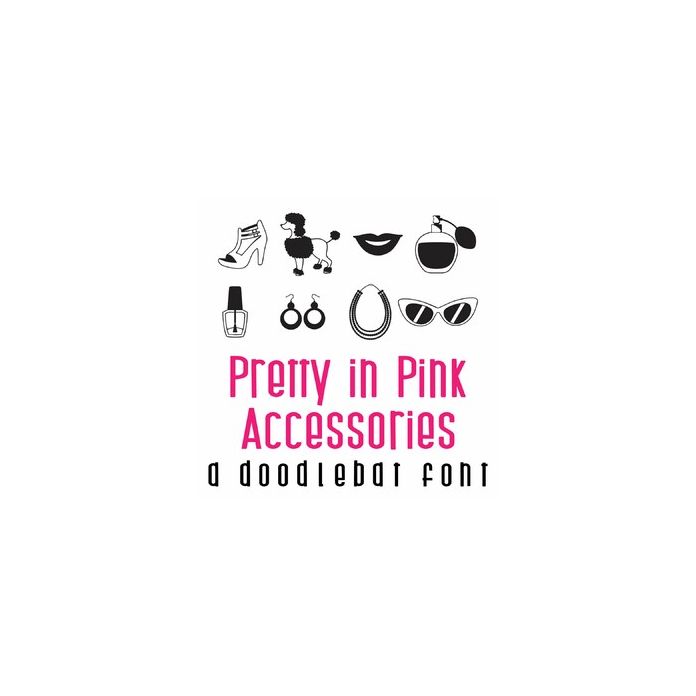
This fun doodlebat features 26 fun fashion and beauty accessories. Perfect for parties, cards, decor, crafts, planner stickers, scrapbook pages and more!